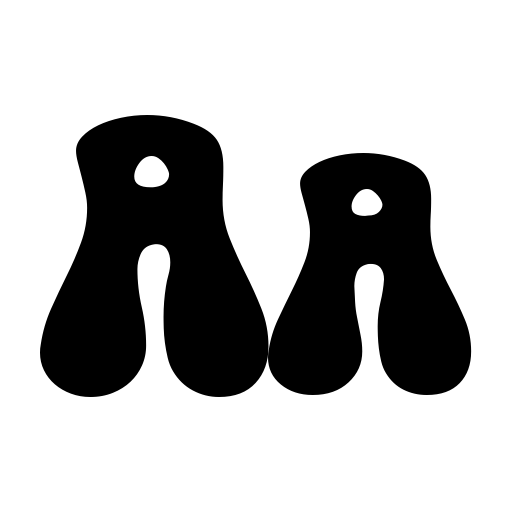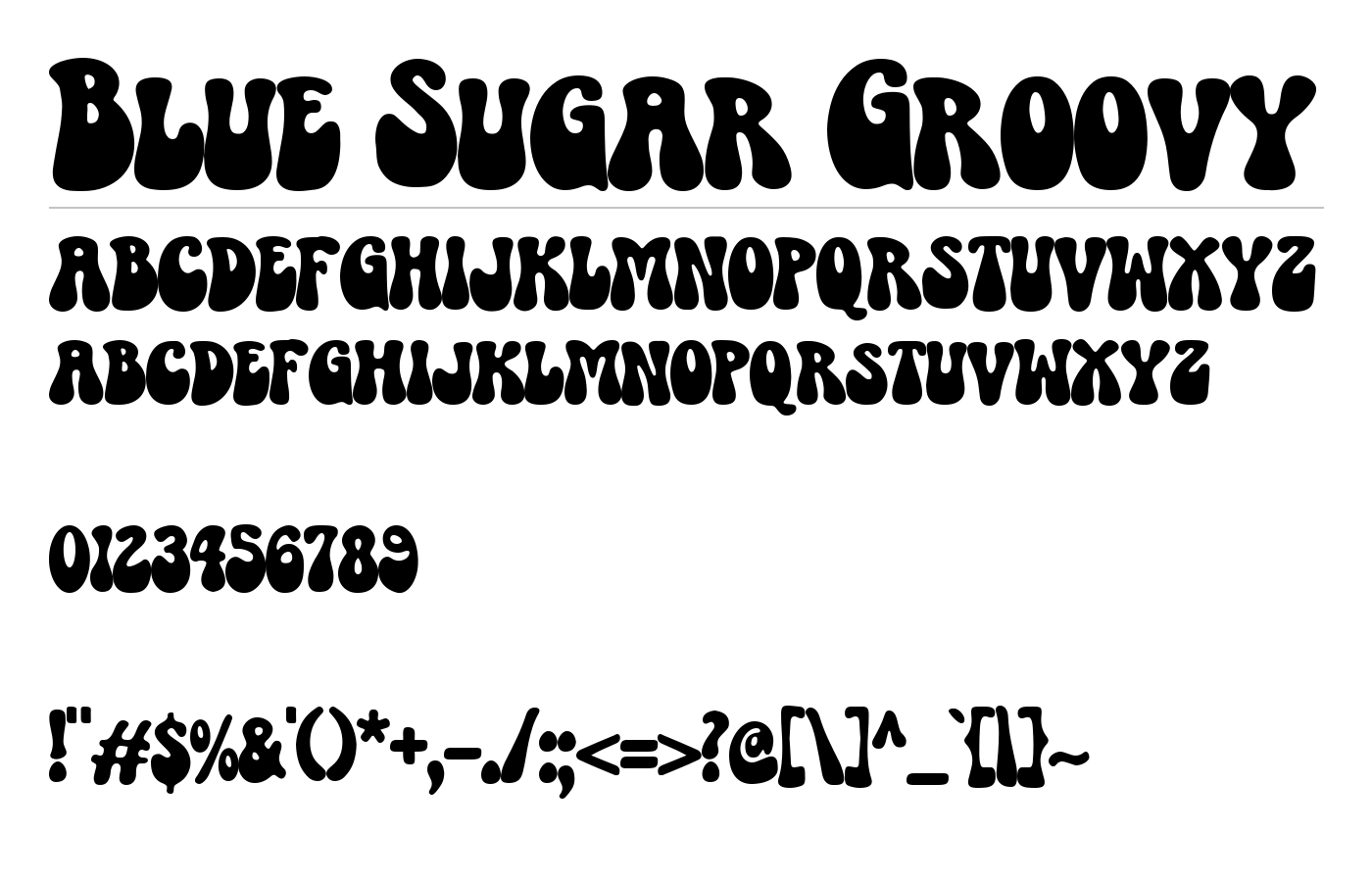
Blue Sugar Groovy is a bold, playful display font with a distinctly retro 1970s vibe, characterized by its chunky, rounded letterforms and whimsical shapes. Its thick, soft strokes and high contrast create a fun, energetic feeling perfect for eye-catching headlines, logos, and creative branding that wants to evoke a sense of nostalgia and groovy charm. This font works best in casual, lively designs where a unique, vintage-inspired personality is desired.
Blue Sugar Groovy Font
About Blue Sugar Groovy Font
| Font family | Blue Sugar Groovy Font |
| Designer | Faras Dina |